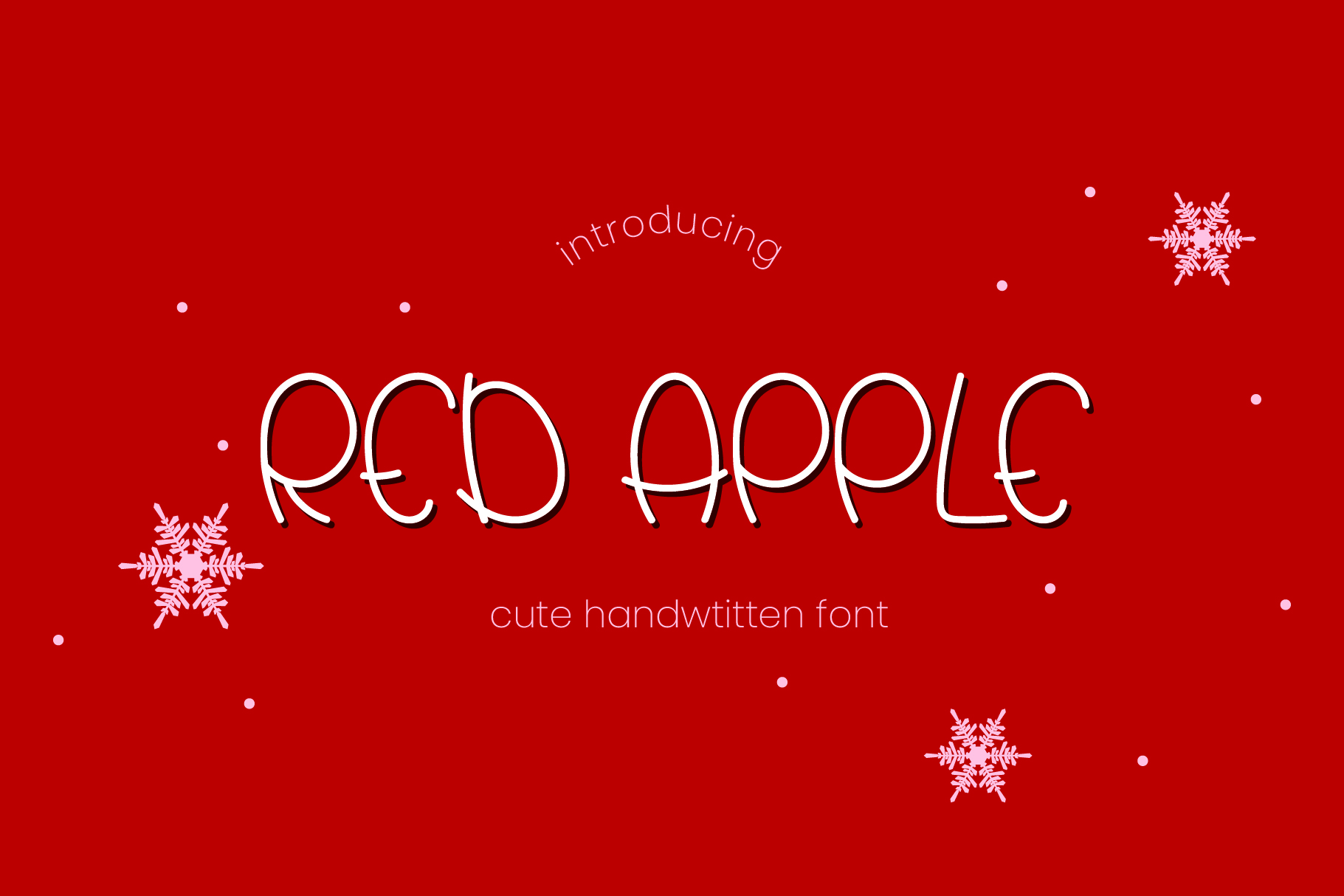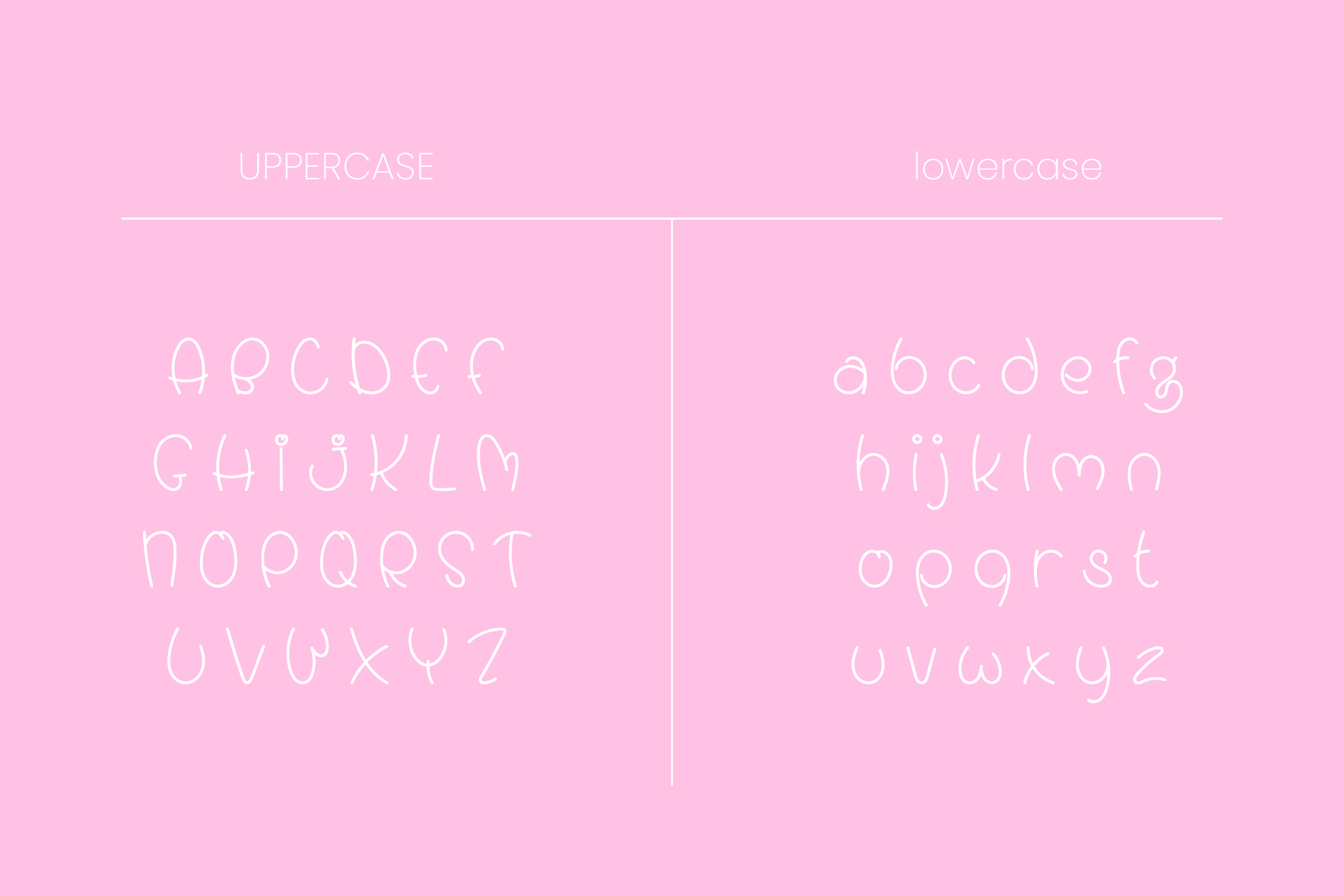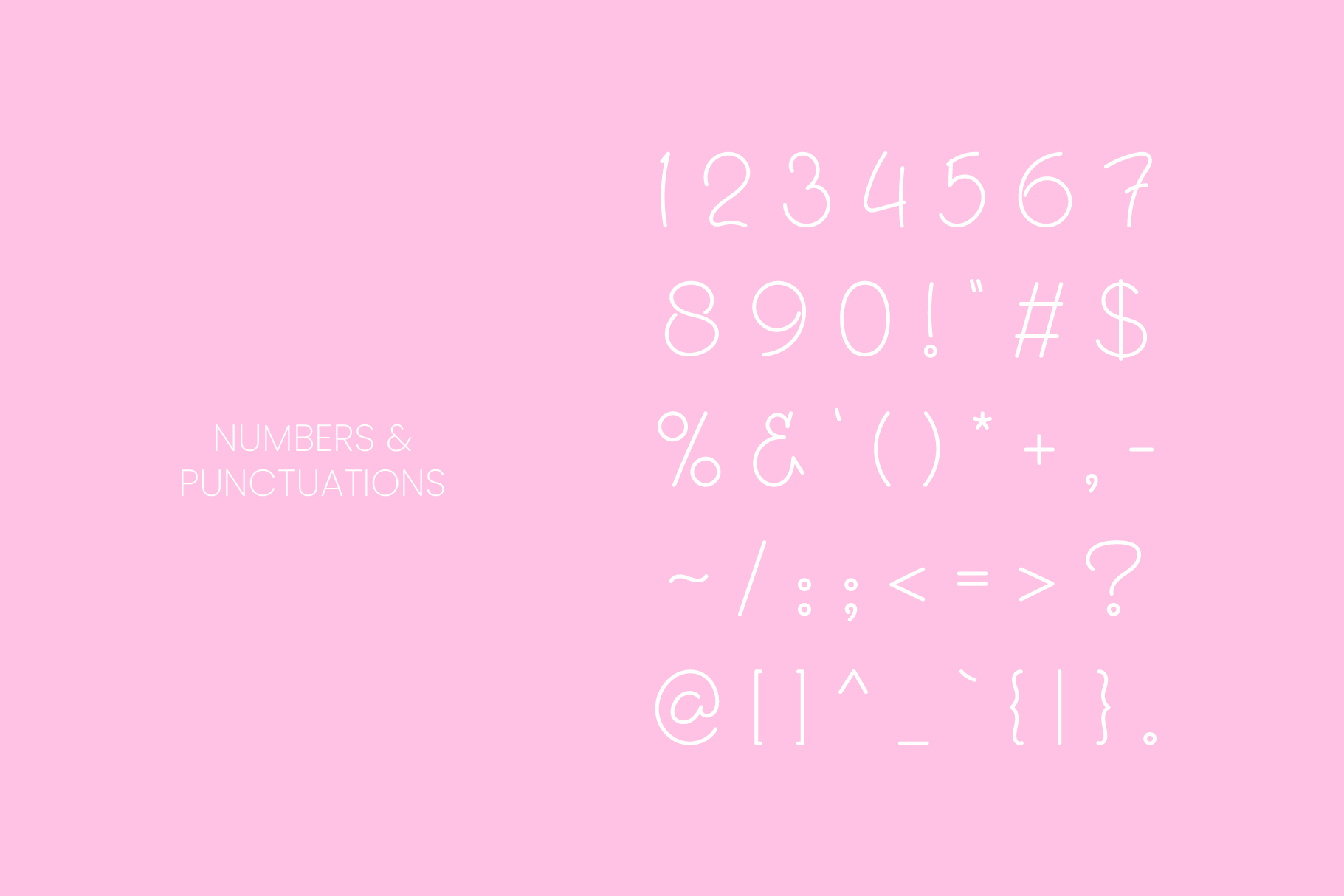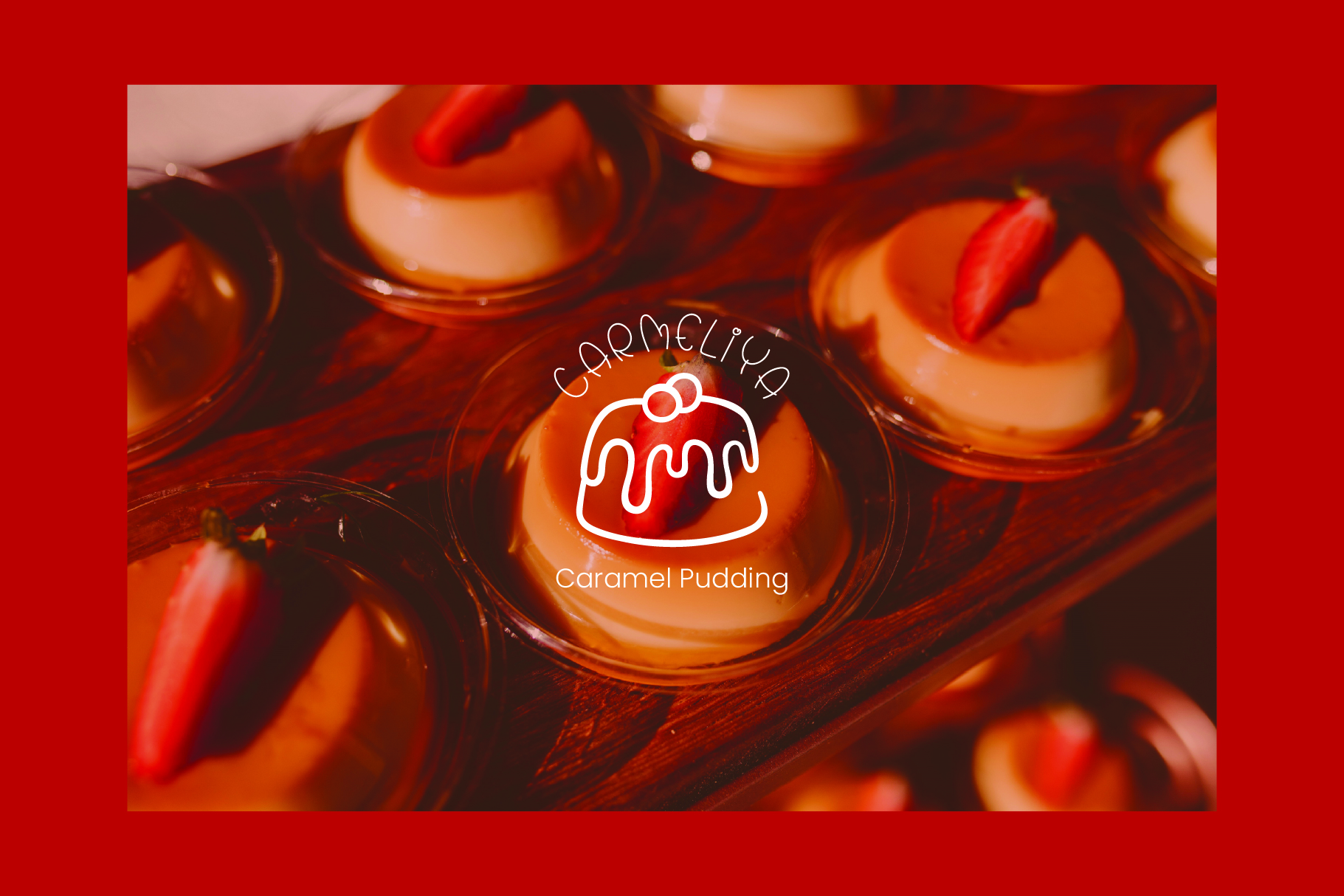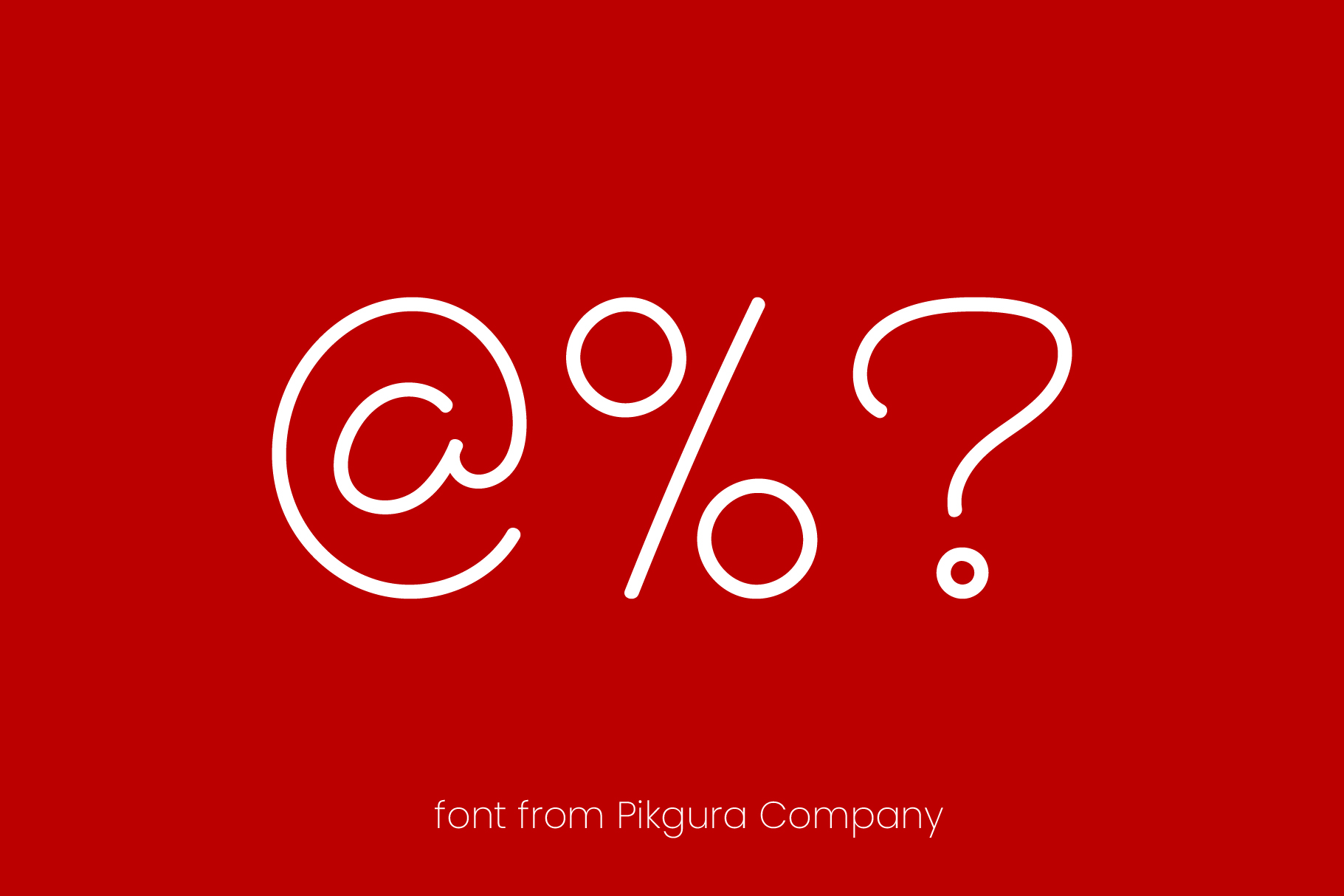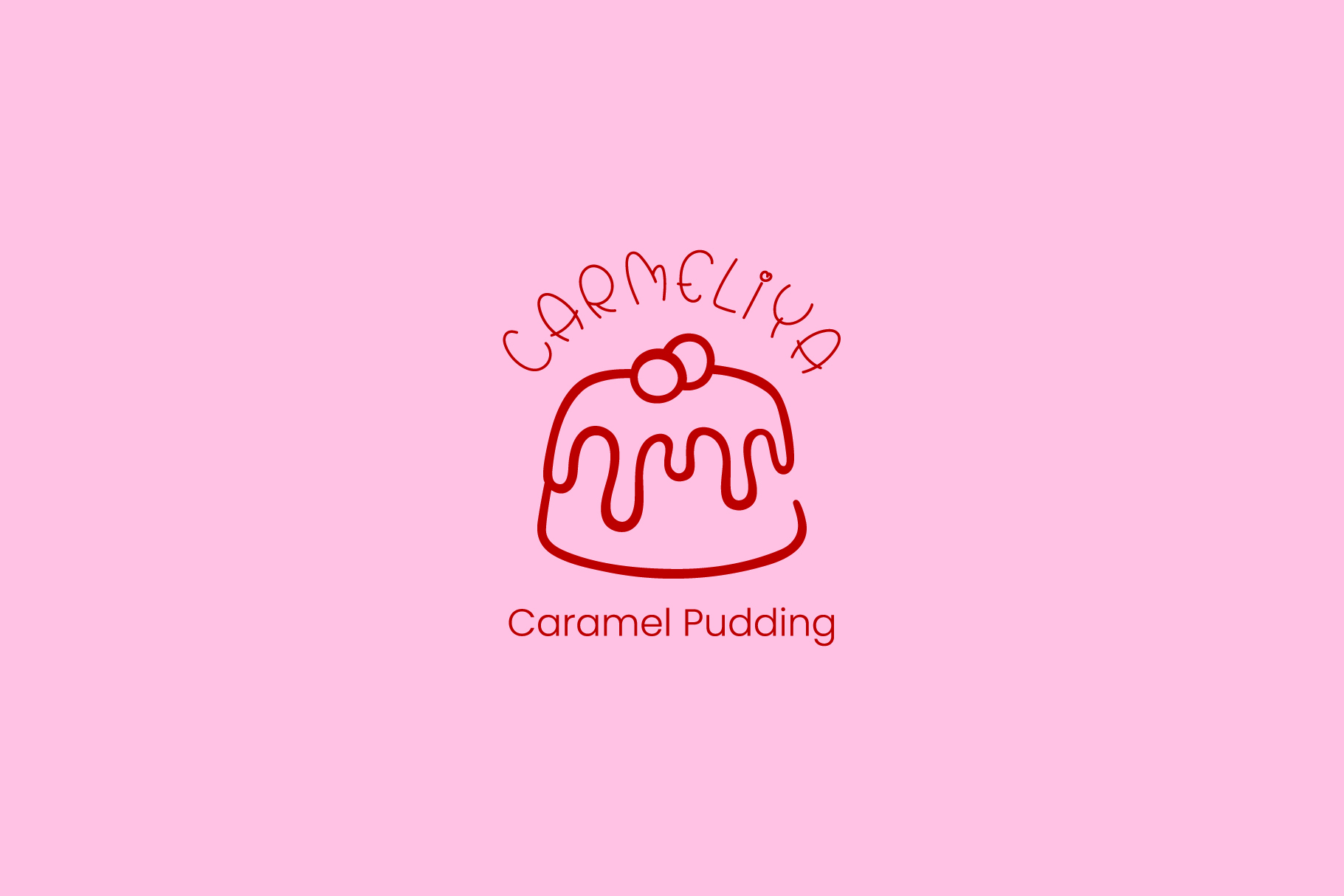
PGR Red Apple
RED APPLE is more than just a font – it’s a way to express yourself and connect with others. Its handwritten style gives it a unique and personal feel, making it perfect for designs that require a touch of sweet. Whether you’re creating a wedding invitation, a birthday card, or a brand identity, Red Apple is sure to make your design stand out.
This beautiful font includes a comprehensive set of characters, including uppercase and lowercase letters, numbers, and basic punctuation marks.